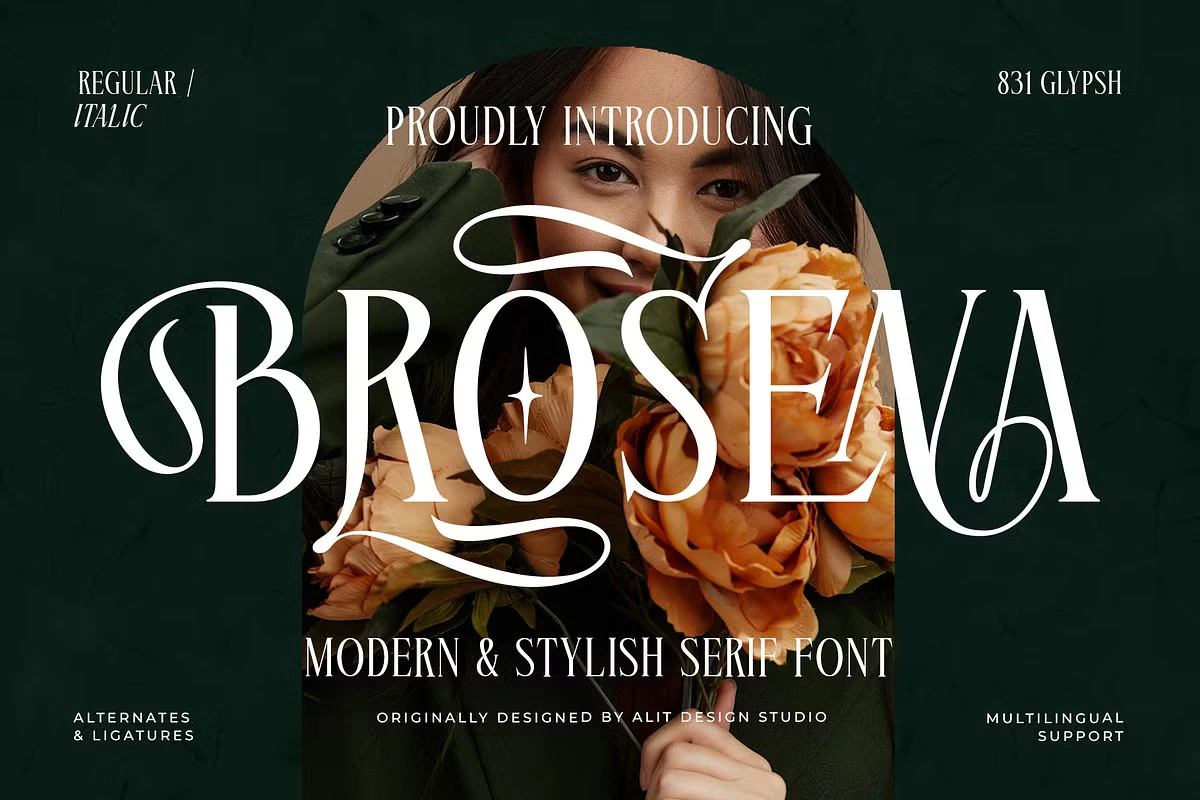
Brosena Font is a stylish display serif with an elegant and luxury style that perfectly matches your branding project and more. Whether you’re working on high-end branding, editorial layouts, or creative projects that demand a luxurious touch, Brosena brings unparalleled elegance to the table.
This typeface features two beautifully crafted styles—Regular and Italic—giving you the freedom to mix and match for diverse design needs. Each style is carefully designed with clean lines, subtle contrasts, and soft curves, making Brosena equally suitable for formal applications and creative expressions.
Brosena Font Serif Display